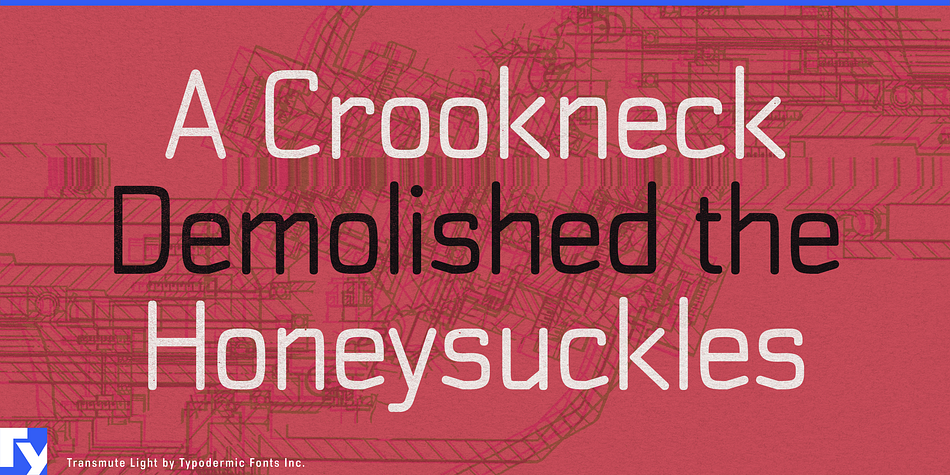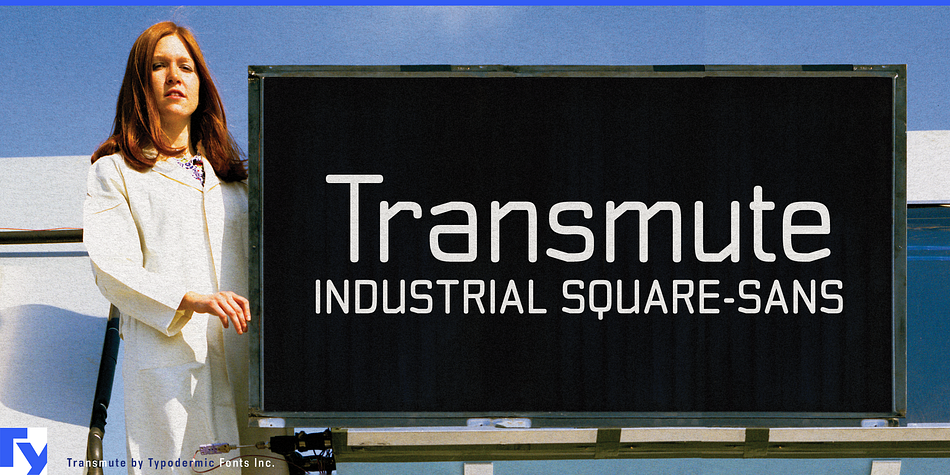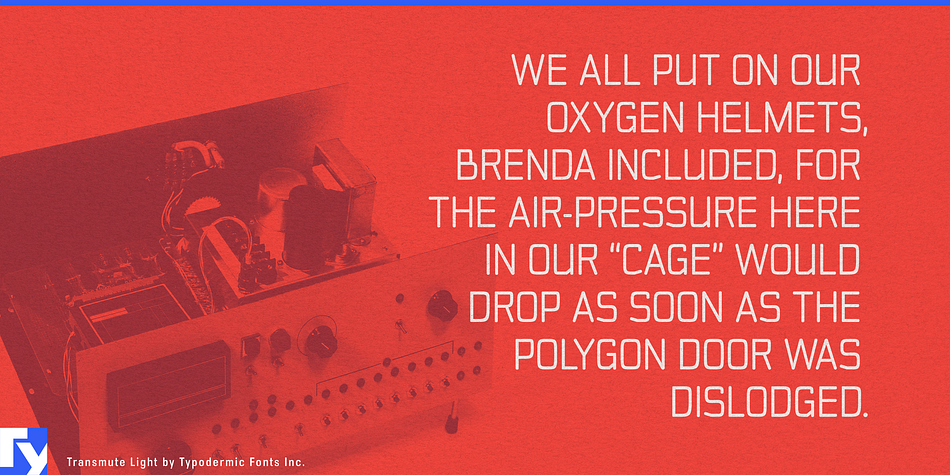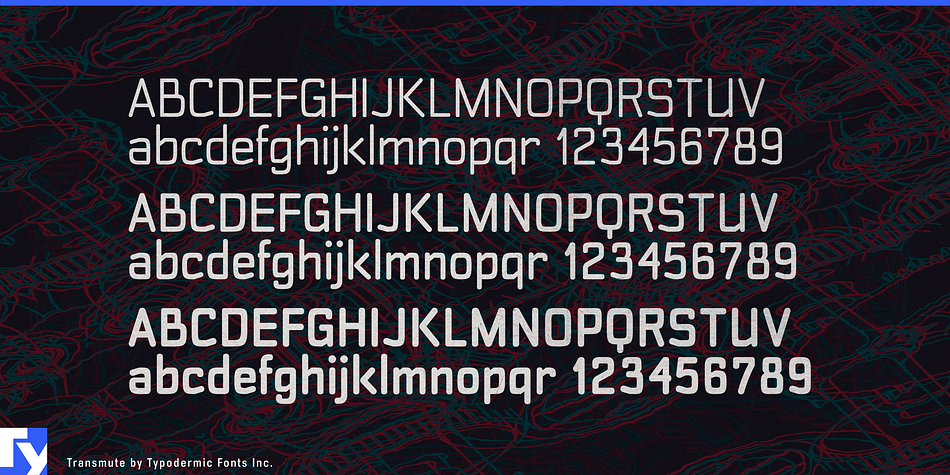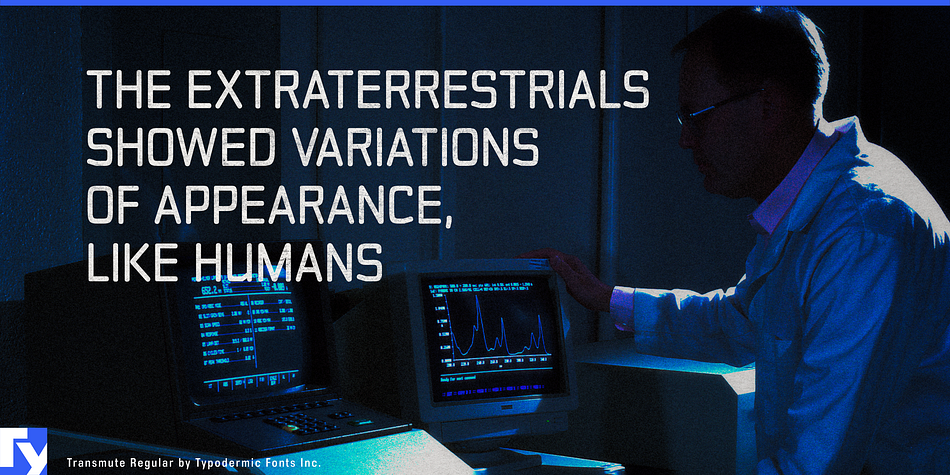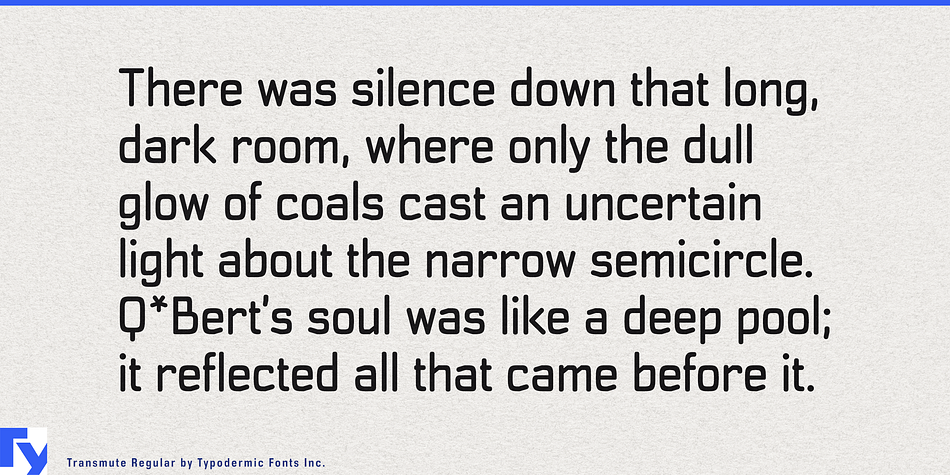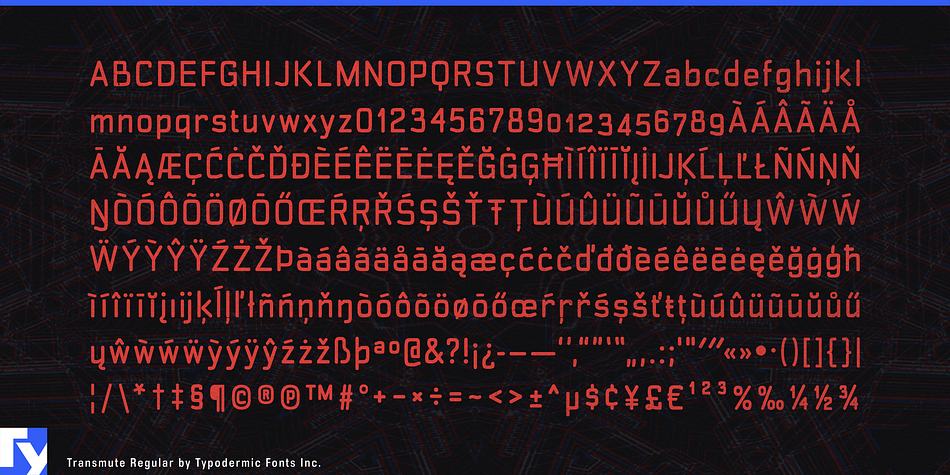
Transmute is a sans serif and display sans font family. This typeface has three styles and was published by Typodermic Fonts Inc.
Transmute is a family of three high-tech square-sans weights inspired by contemporary industrial design.